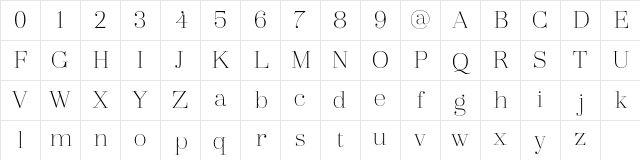
Arshila Thin is a composed and adaptable typeface that performs quietly and consistently across a wide range of design contexts. Its slender proportions lend an understated elegance to any composition.